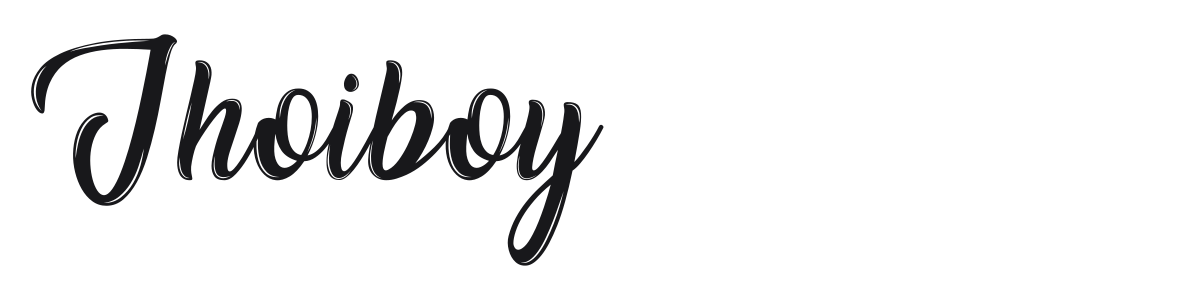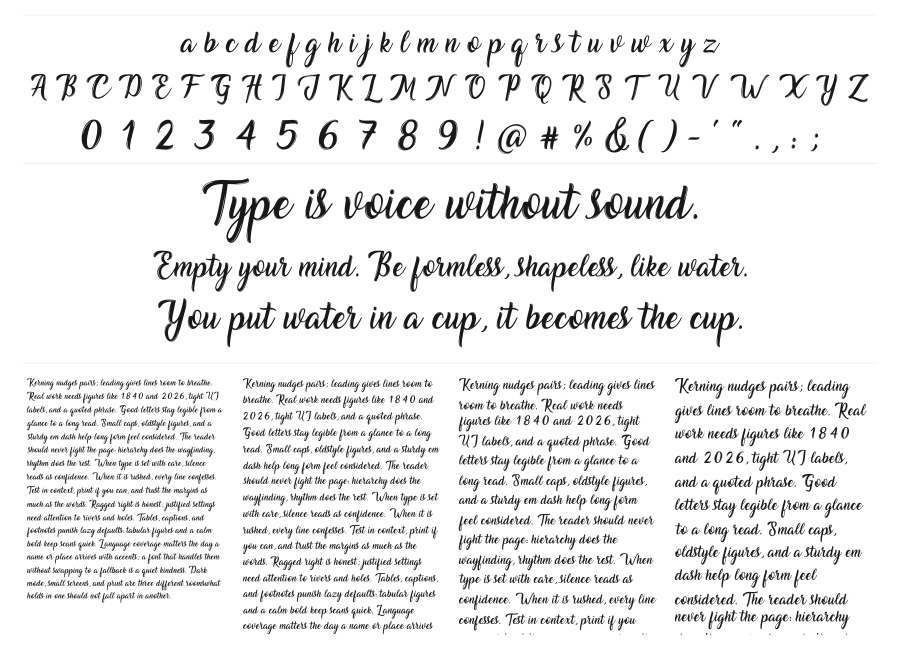
Jhoiboy
Jhoiboy is a bold casual script with a grungy, hand-inked texture that keeps it from feeling too polished. The flowing connected strokes and generous swashes give it natural energy, while the subtle roughness adds character. It comes with multiple alternates and ligatures, giving designers room to build varied, organic-looking compositions.